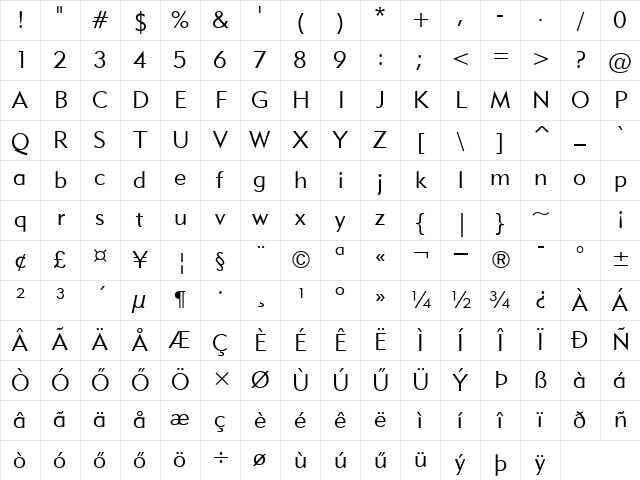
H_Geometric 415 Lite BT Regular Free Font
Design Context for H_Geometric 415 Lite BT
H_Geometric 415 Lite BT is a composed and adaptable typeface that performs quietly and consistently across a wide range of design contexts.